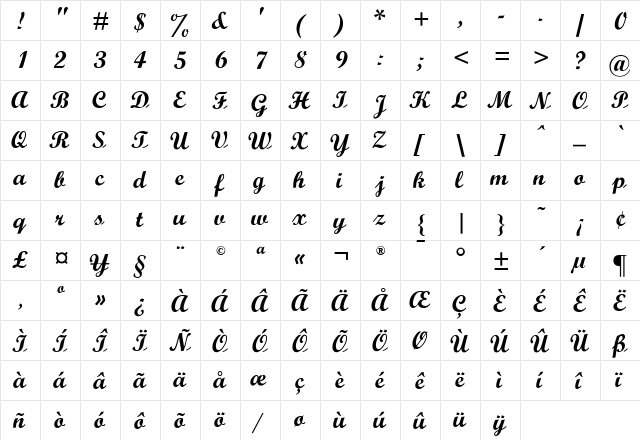
OPTIScript Regular
Design Context for OPTIScript Typeface
OPTIScript brings a calligraphic fluidity to the page — its connecting strokes and expressive curves give it an unmistakably human quality.
Font Pairing: Combine OPTIScript with a simple geometric sans for maximum contrast — the tension between flowing curves and clean structure is a classic typographic pairing.
Pro Tip: Use OPTIScript for short runs of text — names, titles, or taglines. Extended body copy in script faces tires the eye quickly.